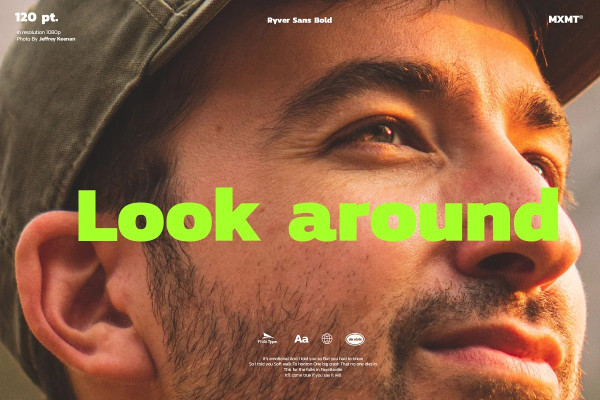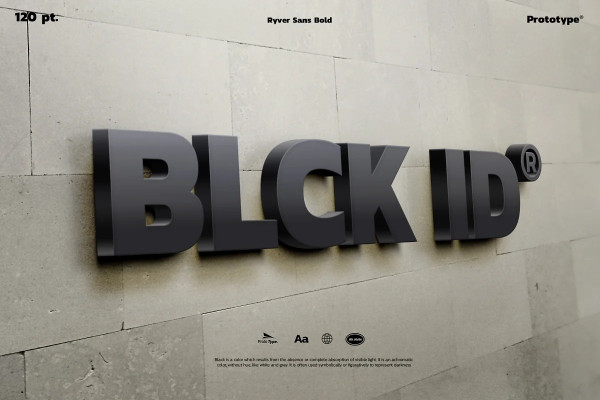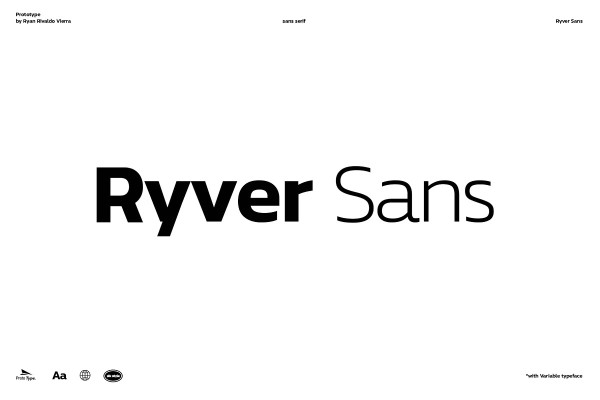
Ryver Sans Font
Ryver Sans Font is designed for maximum visuals. The six weights are perfect for posters, social media, headlines, large-format print – and anywhere you want attention. This font is very character so it is easy to recognize